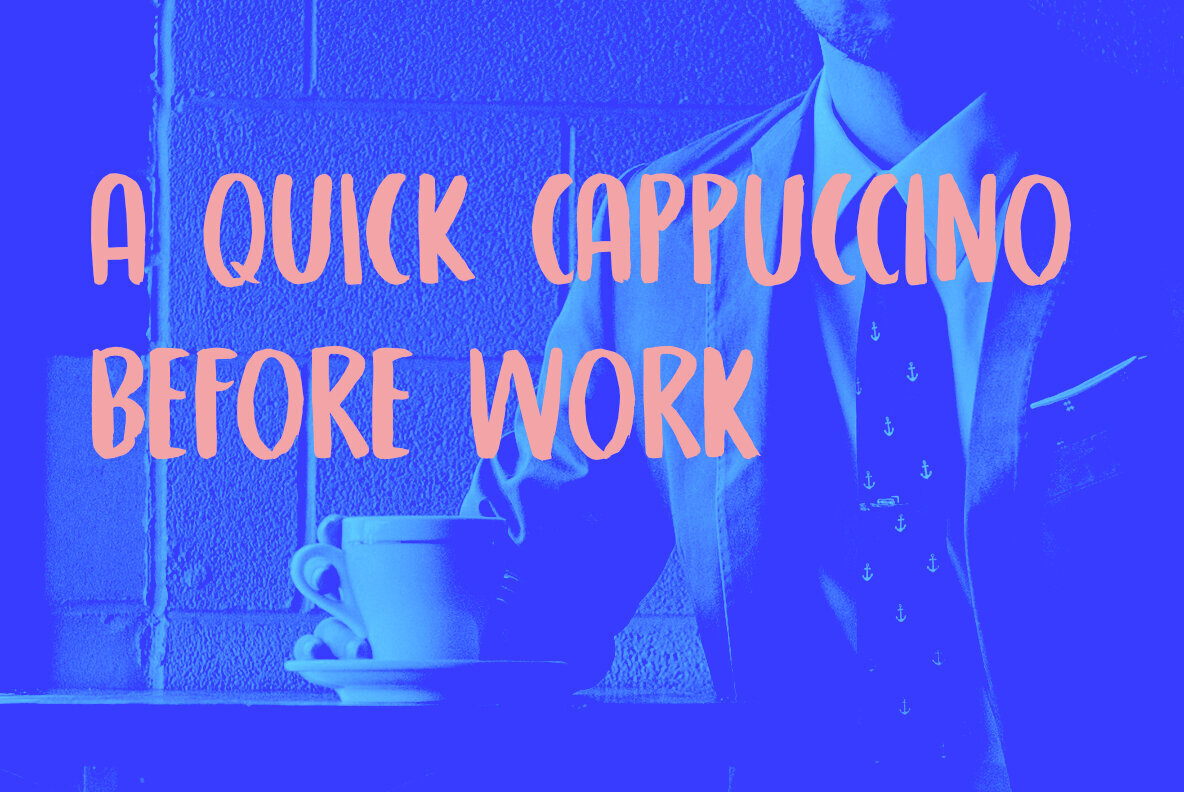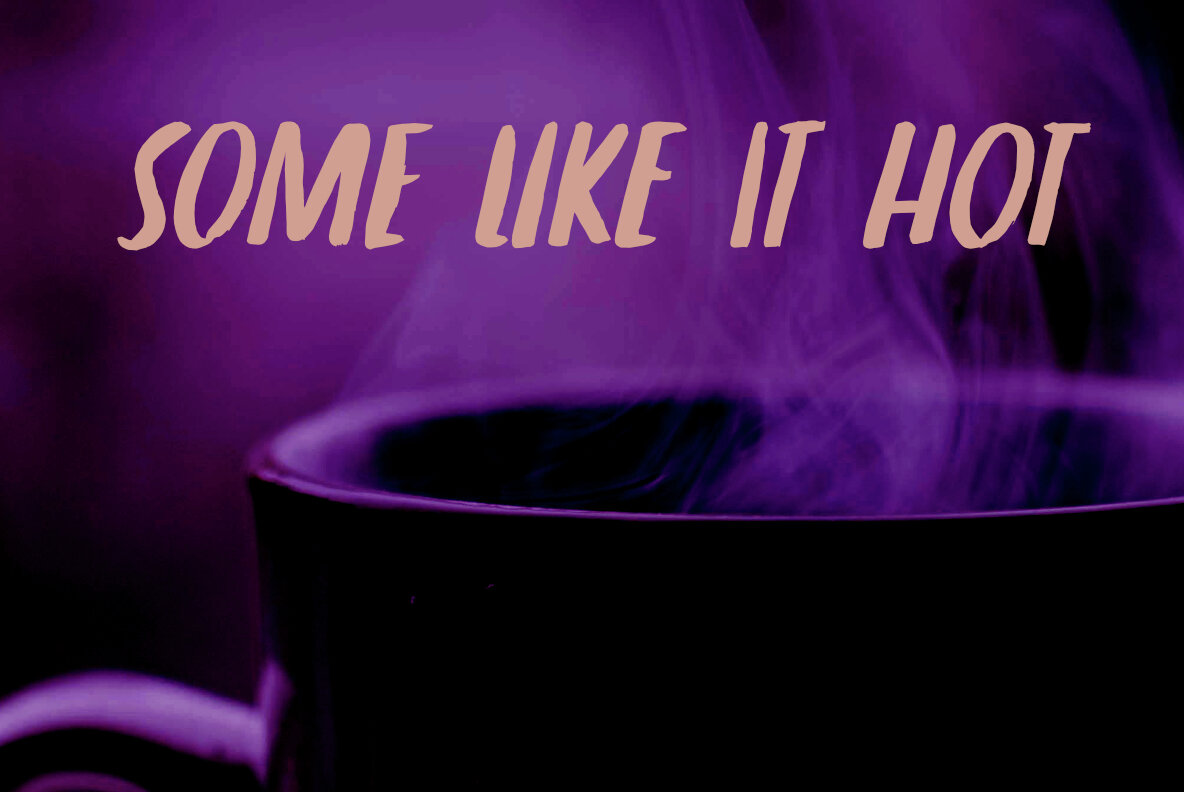
Local Roast Font
Local Roast Regular
Local Roast Italic
Local Roast is inspired by global journeys and the unique stories brought back from afar. The personal touch of hand-painted artistry is evident in its creation, crafted with Chinese ink and a simple brush to bring authenticity and texture to your projects.Local Roast: Hand-Painted Font with International Flair
Notable Features